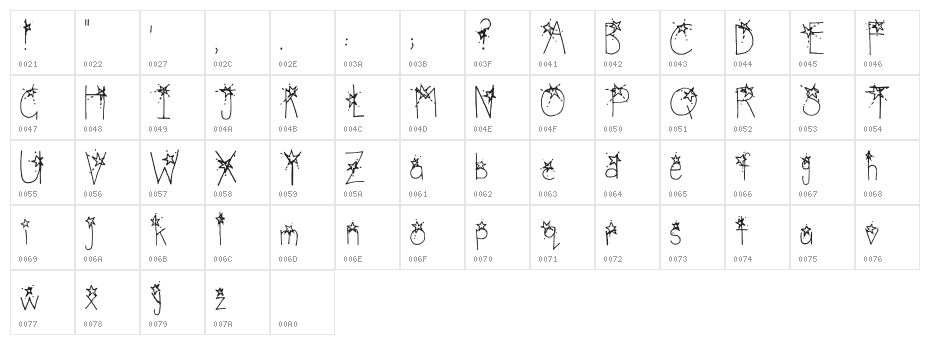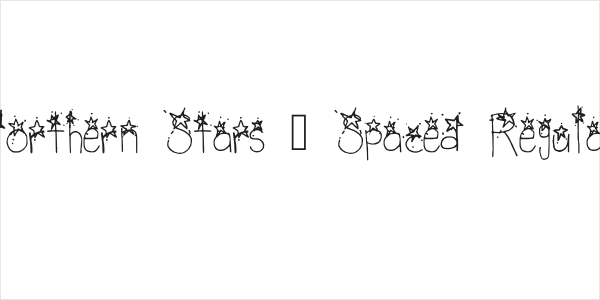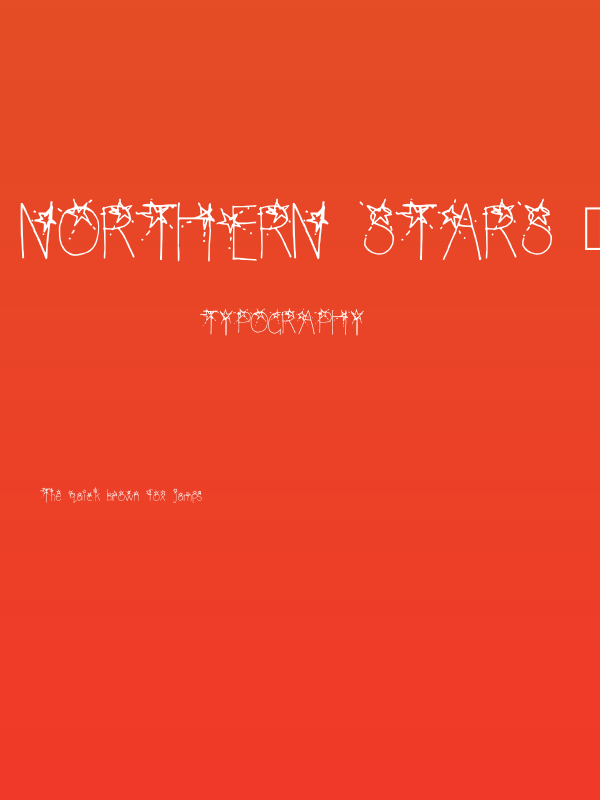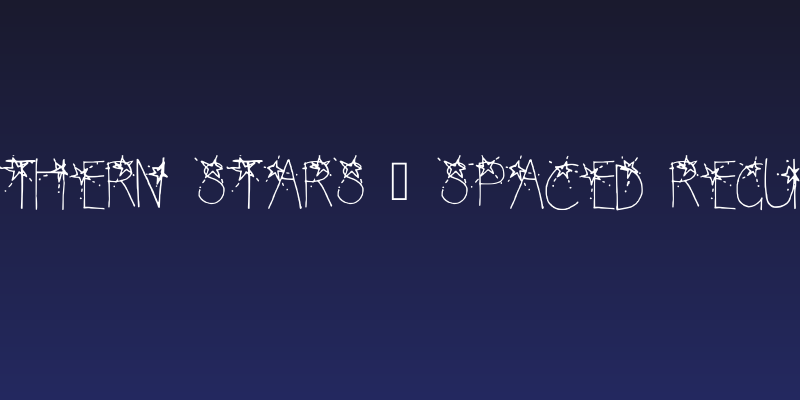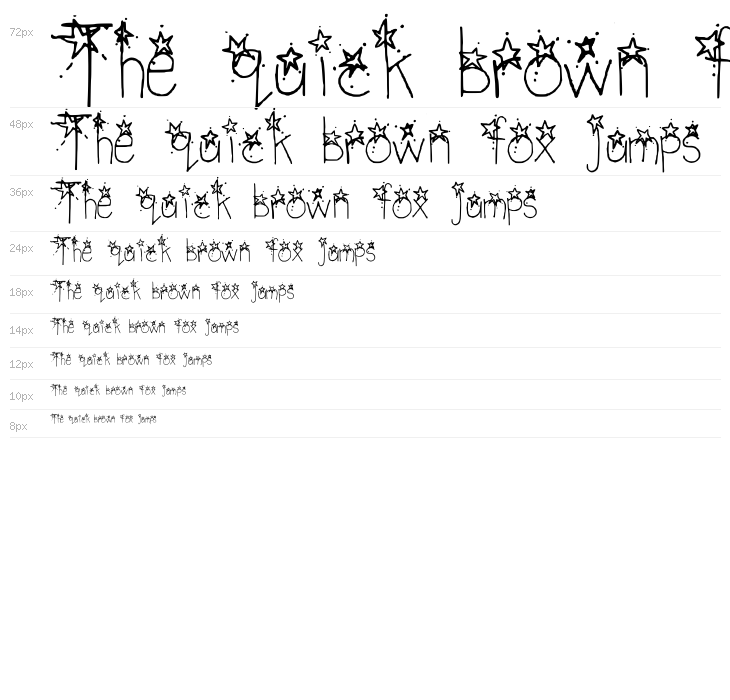
Northern Stars _ Spaced Regular Font
Northern Stars _ Spaced Regular Description
This whimsical and playful font features a unique design where each character is adorned with star-like embellishments. The letters are thin and elongated, giving them a delicate appearance, while the stars add a sense of fun and creativity. The font maintains a consistent style throughout, with each character exhibiting a hand-drawn quality that enhances its charm. The spacing between characters is generous, allowing each letter and its decorative elements to stand out clearly. This font is ideal for projects that require a touch of magic and imagination, such as children's books, party invitations, or creative branding.
Proposed ProjectsChildren's books, party invitations, creative branding, whimsical posters.